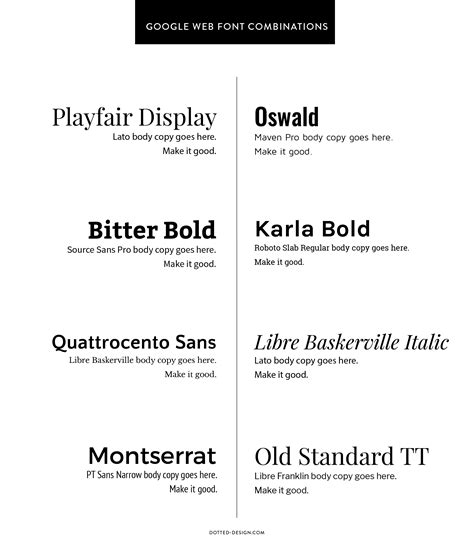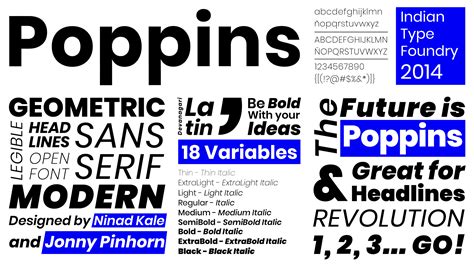
Top 48+ Logo Type Google Fonts Ttf
When clients want a premium brand identity but have a strict zero-budget policy for commercial typography, I always turn to the same resource. Finding the Top 48+ Logo Type Google Fonts Ttf files has saved my design workflow more times than I can count. Most designers know about the Google Fonts library, but not everyone realizes how many of these open-source families are sturdy enough to carry an entire logo. You need typefaces with distinct character, strong geometry, or unique flourishes that survive being scaled up on a billboard or down on a business card.
Standout Typefaces From The Top 48+ Logo Type Google Fonts Ttf Collection
Instead of dropping a massive, unreadable list, I’ve categorized the absolute best open-source families I use for logo mockups. These selections cut through the noise. When you test them in Adobe Illustrator or Figma, you will immediately see how well they hold their weight and spacing at massive scales.
Font Name Best Used For Key Characteristic
Montserrat Tech & Corporate Geometric, clean apertures
Bebas Neue Sports & Apparel Tall, bold, uppercase only
Playfair Display Luxury & Editorial High contrast, elegant serifs
Pacifico Casual & Retail Brush script, friendly tone
Oswald News & Media Condensed, strong impact
Building a strong brand mark doesn’t require an expensive typography subscription if you know where to look. By sourcing the right TrueType files directly, you ensure maximum compatibility across all your production hardware and design tools. Test these open-source families in your next mockup, push them to large scales, and see how they elevate your brand work without touching your budget.